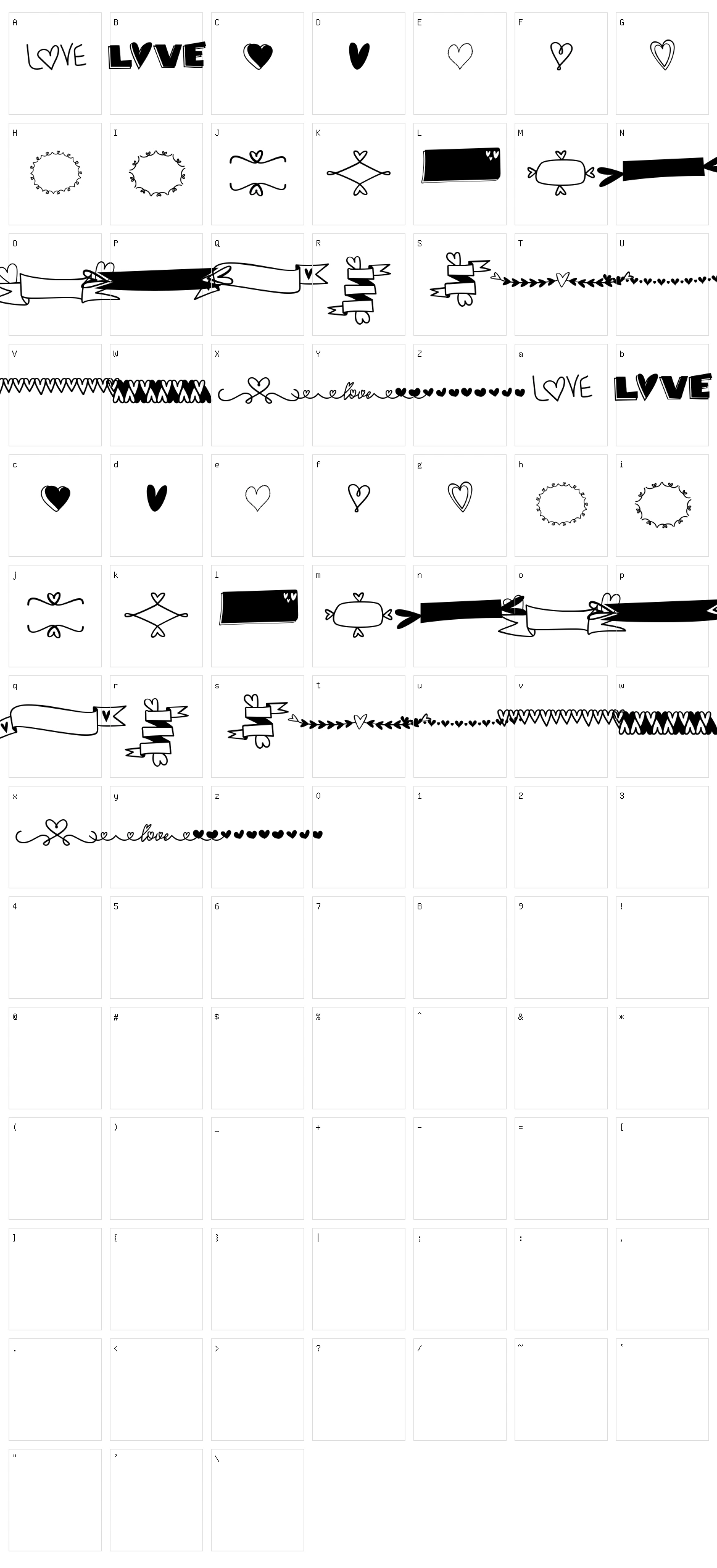
The free font MF Heart Stuff is carefully designed by Misti's Fonts, showcasing a thoughtful balance of creativity and usability and falls under the Valentine font style. When you download the ZIP file, it contains only 55.26 KB of font files, making it lightweight and quick to download. Please review the license details below to understand permitted usage and distribution rights. If license information is not available, we recommend using this font for personal projects only or contacting the author directly for commercial usage permissions.